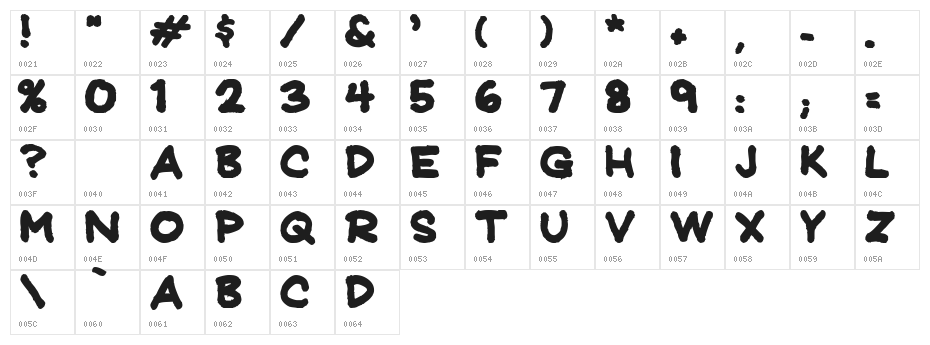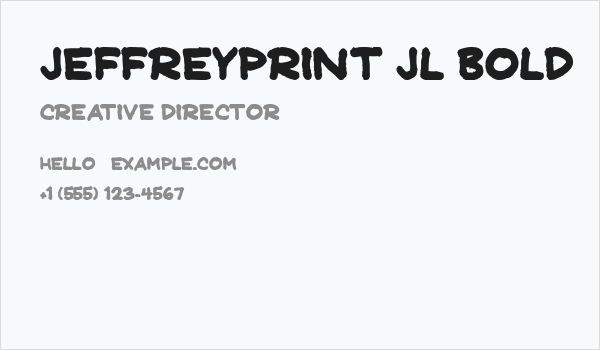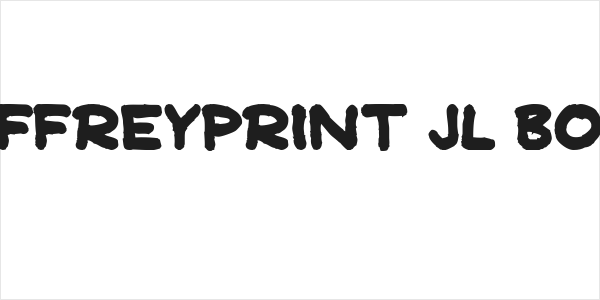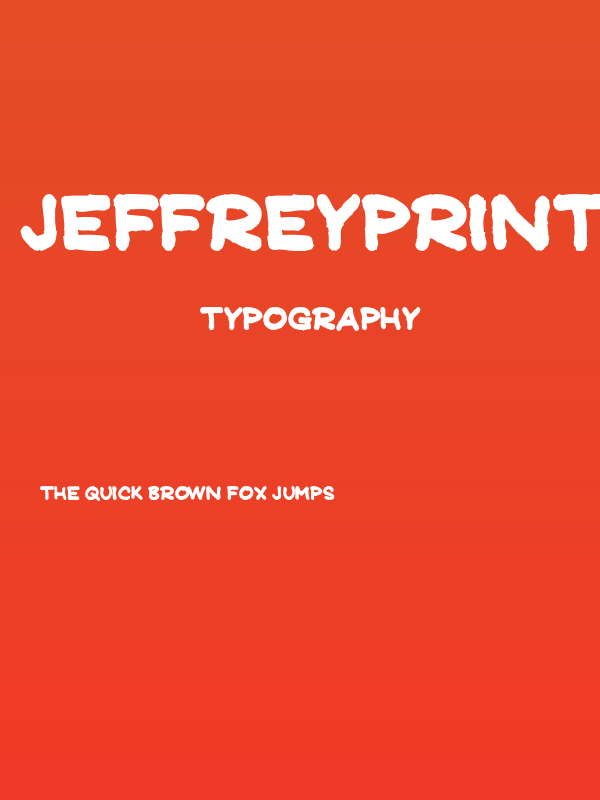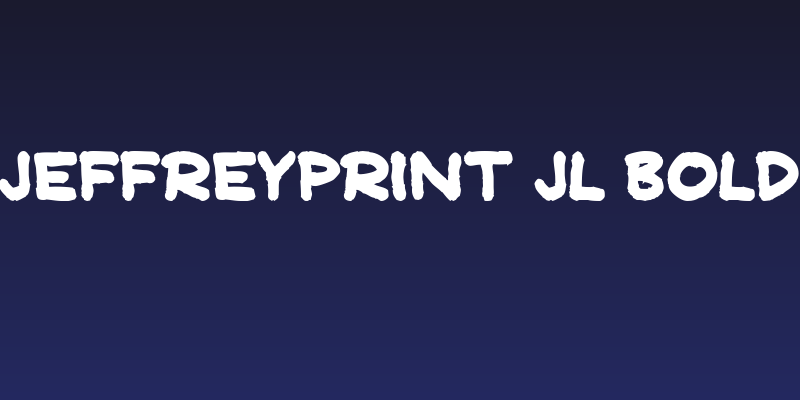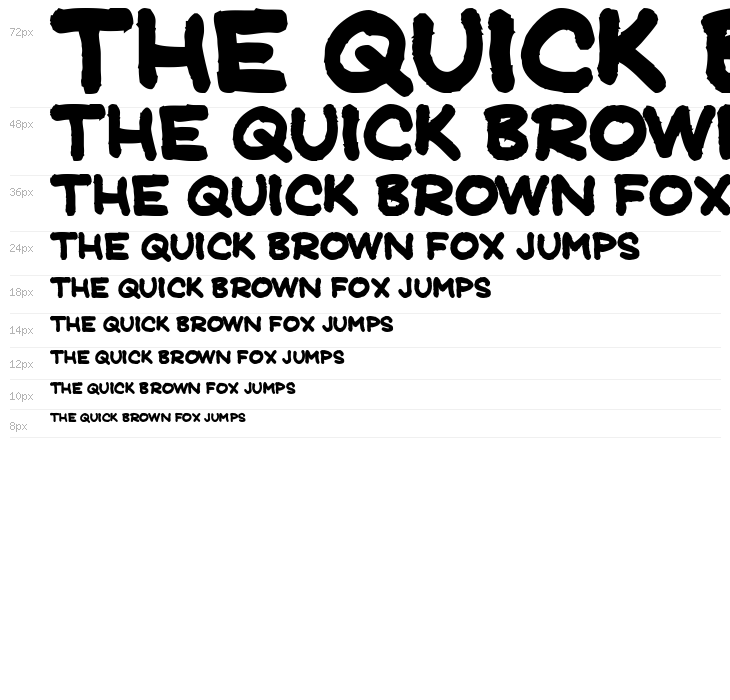
JeffreyPrint JL Bold Font
JeffreyPrint JL Bold Description
This bold, expressive font features thick, rounded strokes that give it a playful and energetic appearance. The characters are designed with a hand-drawn aesthetic, providing a sense of warmth and approachability. The uppercase and lowercase letters maintain a consistent style, with a slightly irregular shape that adds to the font's charm. The numbers and special characters are equally bold and maintain the same playful style, making them suitable for various creative applications. The overall design is reminiscent of a casual, handwritten style, yet retains clarity and readability.
| Overall Style | Playful, Casual |
| Proposed Projects | Ideal for children's books, playful branding, posters, and creative projects requiring a friendly and approachable typeface. |